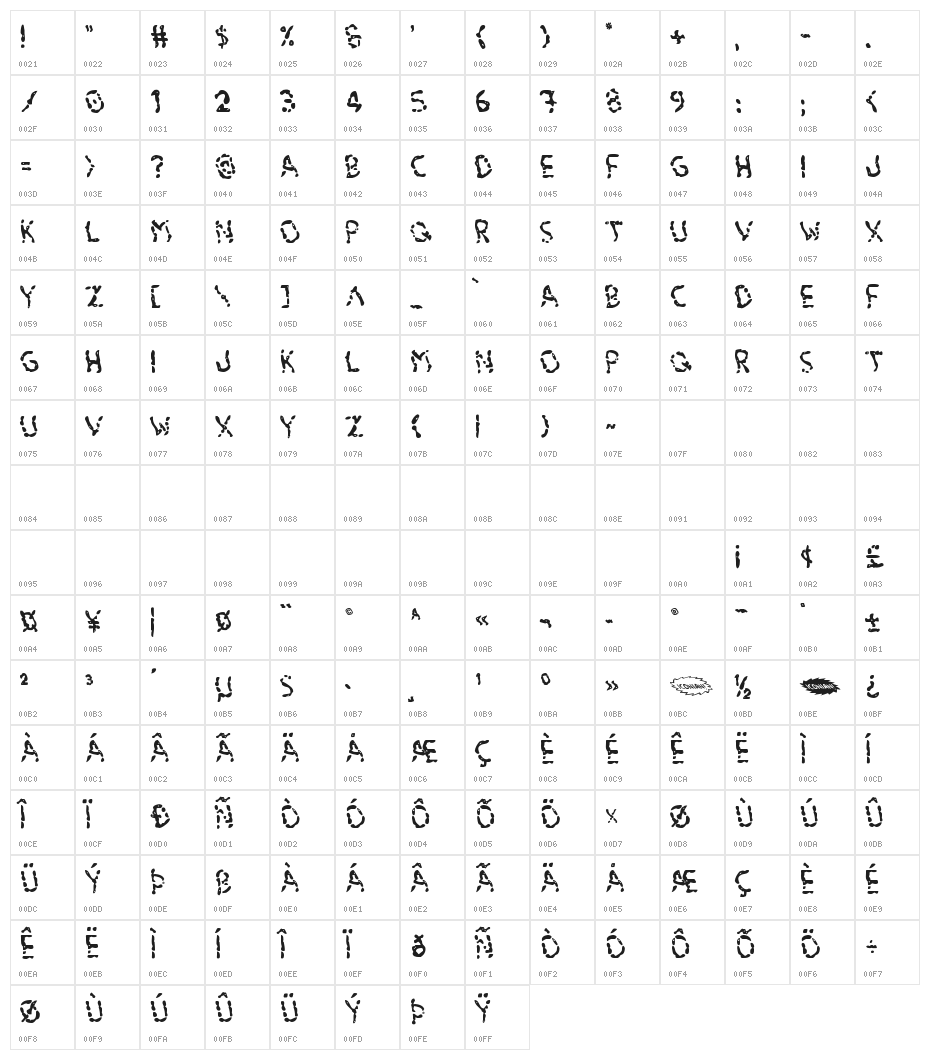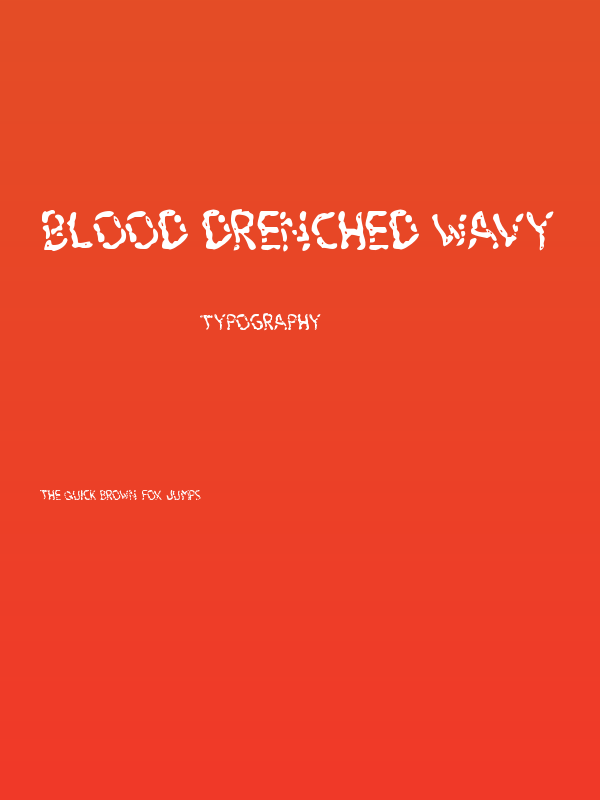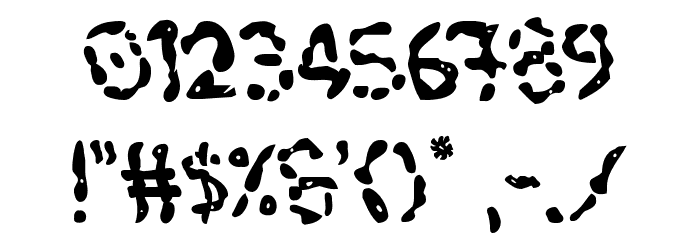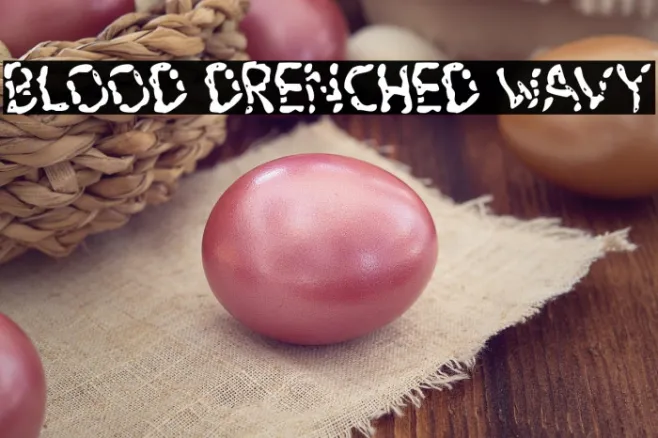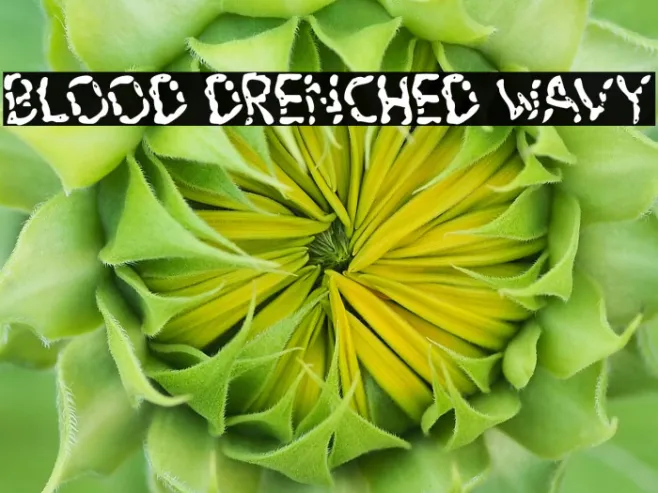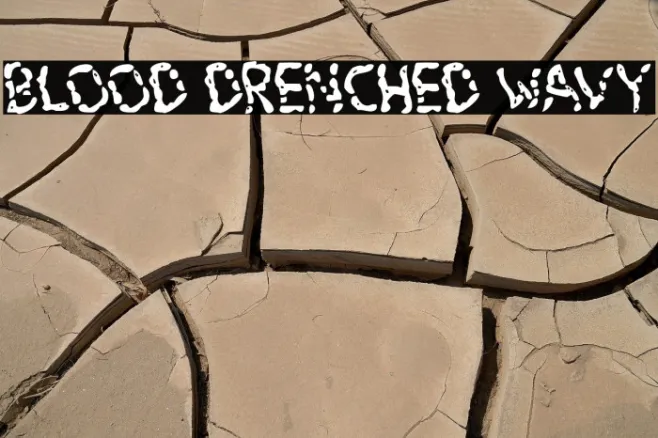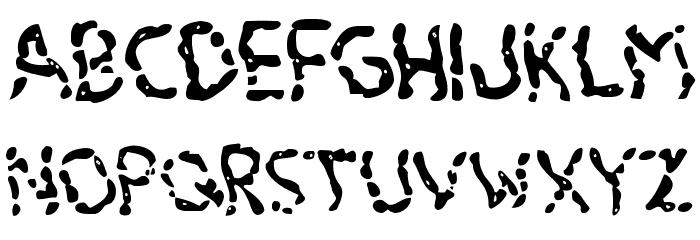
Blood Drenched Wavy Font
Blood Drenched Wavy Description
This font features a unique, dripping effect that gives the impression of letters formed from liquid or blood. The characters are bold and irregular, with uneven edges and a wavy appearance that suggests movement or fluidity. The uppercase and lowercase letters maintain a consistent style, with each character appearing as if it is melting or dripping. Numbers and special characters follow the same design, enhancing the overall cohesive look. This font is highly decorative and eye-catching, making it suitable for themes that require a dramatic or eerie aesthetic.
| Proposed Projects | Ideal for horror-themed posters, Halloween invitations, or any project requiring a dramatic and eerie typeface. |